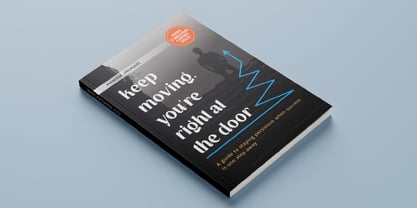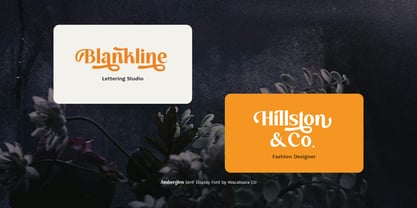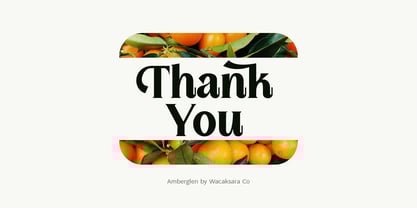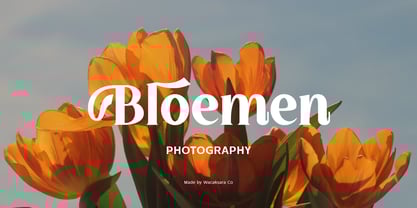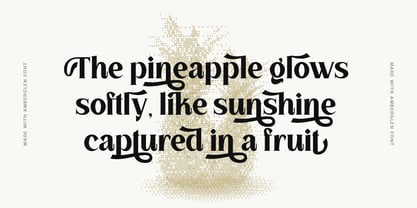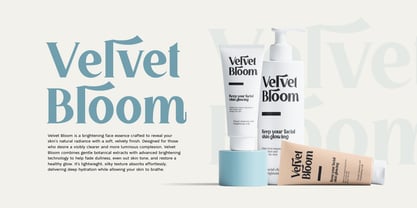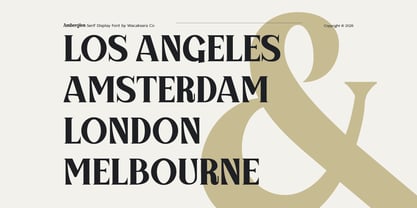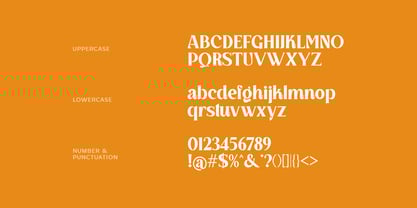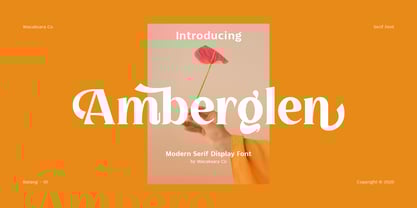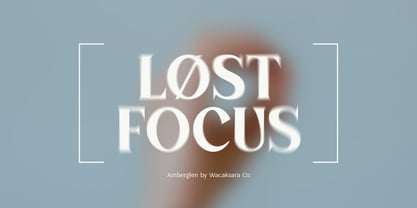
Amberglen
by Wacaksara co
The Amberglen Font Family was designed by Hamam Jauhari and published by Wacaksara co. Amberglen contains 1 styles. More about this family
Amberglen is a classy and feminine modern serif display font with elegant curves and a soft touch. Designed to bring warmth and sophistication to your work, this typeface shines in branding, packaging, beauty products, editorials, book cover, wedding invitations, printed quotes, and sosial media. With its refined contrast and stylish letterforms, Amberglen delivers a polished, high - end look that feels modern yet subtly nostalgic. Perfect for designers who need a versatile serif font that elevates any layout with effortless charm.
Designers: Hamam Jauhari
Foundry: Wacaksara co